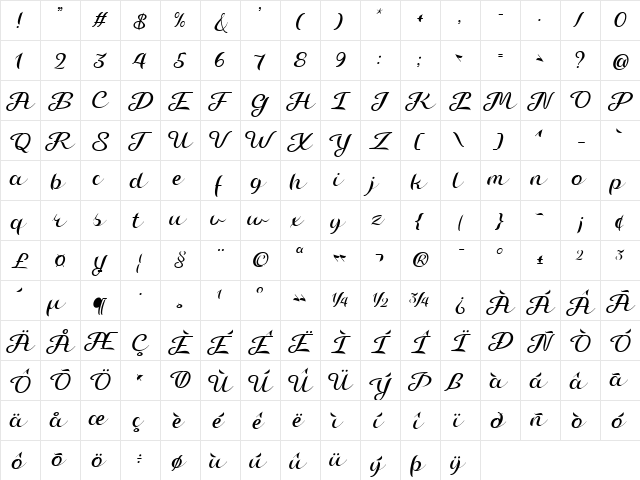
Misti's Destruction Regular
Design Context for Misti's Destruction Typeface
Misti's Destruction is a composed and adaptable typeface that performs quietly and consistently across a wide range of design contexts.